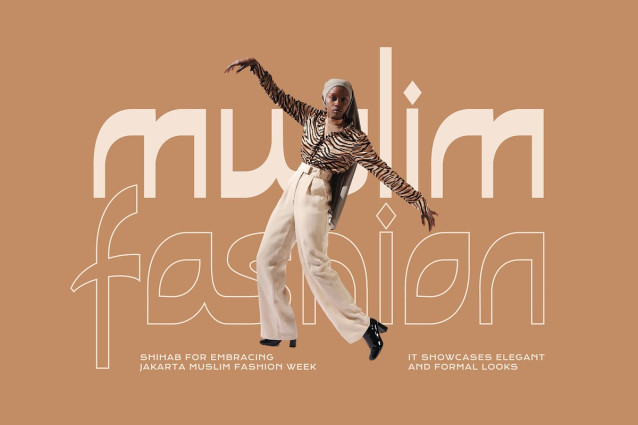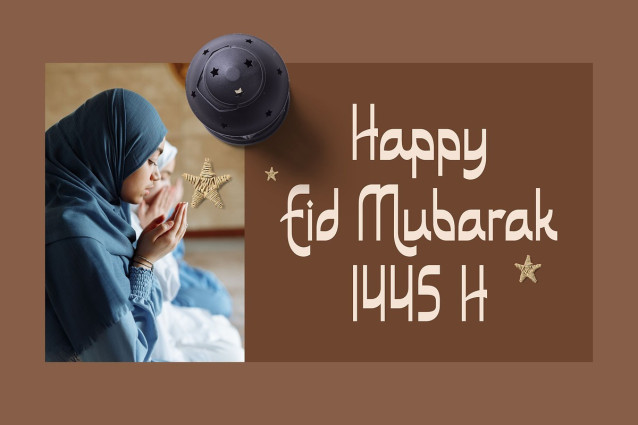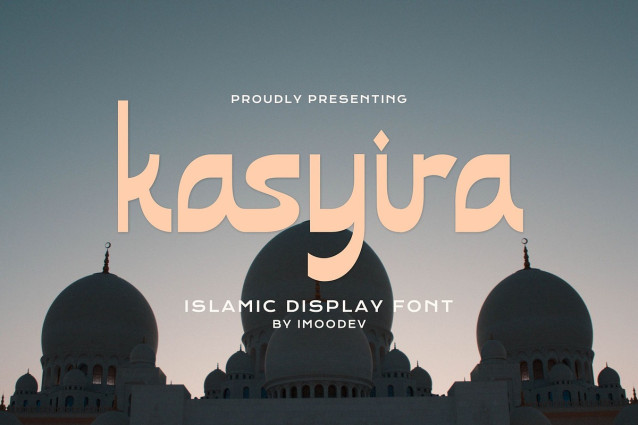
Kasyiro Display Font
Kasyiro Display Font is a modern Islamic display font that blends geometric precision with graceful, flowing forms inspired by Arabic calligraphy. Its bold yet elegant strokes create a unique balance between tradition and contemporary design.
Perfect for: Eid and Ramadan campaigns, halal/food and travel branding, packaging, editorial headlines, posters, invitations, and social content where you want a refined middle eastern flavor, and a variety of design or artistic projects that feature an islamic or cultural theme.